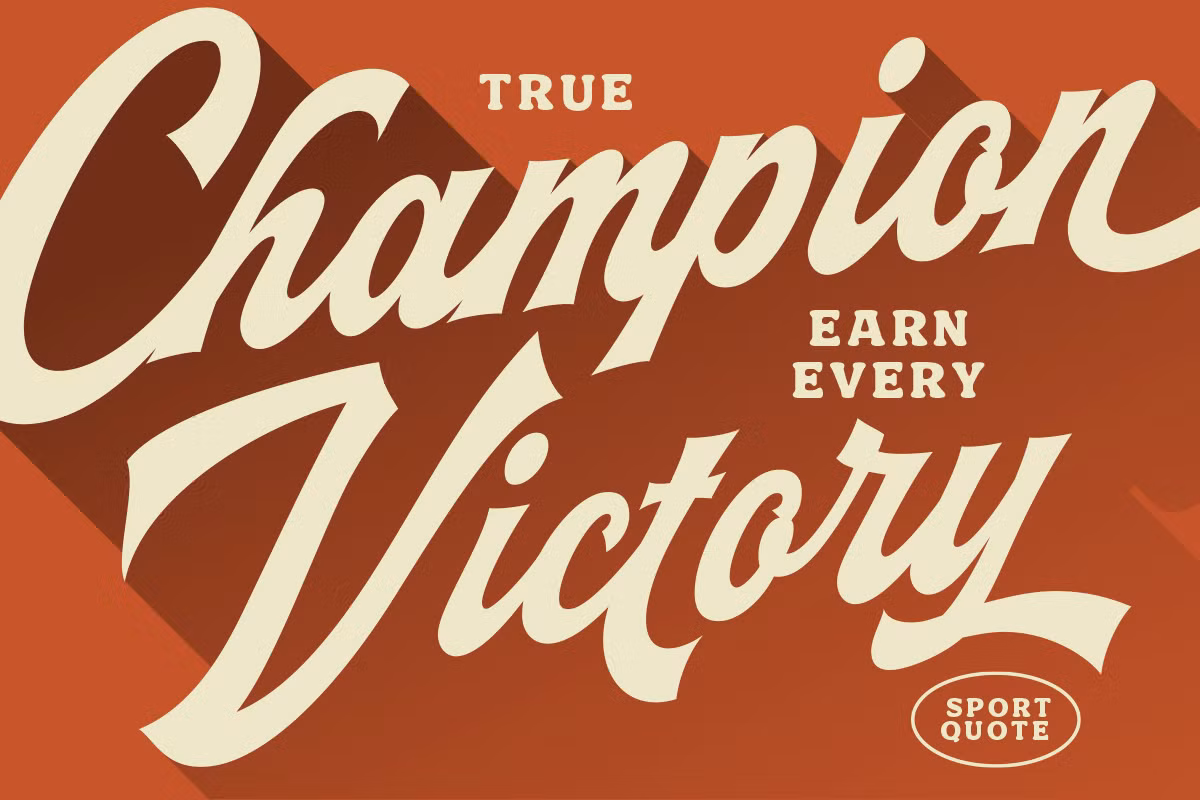
Maltone Script: Vintage Typeface with Retro Charm for Design
Maltone is a classic typeface with a lot of personality. It has thick lines, curvy shapes, and letters that stand out. The design is inspired by old signs and labels, which gives it a cozy and nostalgic feel. When you use Maltone in a project, it adds a special touch without making the text hard to read. This makes it a great choice for many different uses. The typeface is also handmade, which means it has a unique, human feel to it. Overall, Maltone is a great way to add some warmth and style to your designs. It’s perfect for anyone who wants to create something that feels friendly and approachable. With its bold look and clear letters, Maltone is a versatile typeface that can be used in many different ways.
Design Style of Maltone Script
The design aesthetic of Maltone Script is rooted in nostalgia, making it perfect for projects that seek to evoke a sense of warmth and familiarity. The bold strokes and sweeping curves are reminiscent of the artistry found in traditional sign painting, giving it a handcrafted quality that is rare in modern typefaces. The confident letterforms create a visual impact, ensuring that your text stands out without overwhelming the viewer.
Maltone Script is a great example of retro design, blending old-school typography with a modern feel. It’s not just nice to look at, but also really useful. The way the letters flow together creates a warm and welcoming atmosphere, making it perfect for branding and promotional stuff. This script has a classic touch that’s still fresh and exciting, which is why it works so well for creating eye-catching materials. Overall, Maltone Script is a fantastic choice for anyone looking to add some personality to their designs.
Character Sets and Features
Maltone Script has a lot to offer when it comes to characters – you get both uppercase and lowercase letters, numbers, and punctuation. This means you can convey all sorts of messages while keeping your design looking consistent. What’s more, Maltone also includes alternate characters and ligatures, which gives designers the freedom to create one-of-a-kind typography that really stands out. With all these options, you can experiment with different looks and feels to find the perfect fit for your project. Whether you’re working on a formal piece or something more playful, Maltone Script’s versatility has got you covered.
Maltone Script has a really useful feature – it works well with many languages, making it a great choice for designers who need to create content for different cultures. Plus, it’s PUA encoded, which means you can easily get to special characters, giving you more freedom to be creative. This makes it a versatile font that can be used in a variety of design projects, from international marketing campaigns to multilingual websites, and everything in between. The fact that it supports multiple languages and has easy access to special characters is a big plus for designers who want to create unique and effective designs.
Alternates and Ligatures
The Maltone Script font offers some really useful features like alternates and ligatures that can help make your designs stand out. With these features, you can add a personal touch to your typography, which is especially important for branding projects where you want to be different from everyone else. By using these special features, you can create unique and customized designs that reflect your brand’s personality. This is a great way to make your work more distinctive and memorable, and it’s a big advantage when you’re working on projects where you need to stand out from the crowd.
Use Cases for Maltone Script
Maltone Script is incredibly versatile, making it suitable for a wide range of design applications. Here are some key use cases:
- Logos: The bold and friendly nature of Maltone Script makes it an excellent choice for logo design. It conveys personality and can help establish a strong brand identity.
- Posters: Whether for an event, concert, or promotional campaign, Maltone Script can add a vintage flair to posters, capturing attention with its retro charm.
- Packaging: For products that want to evoke memories or a sense of history, Maltone Script enhances packaging appeal, making it look classic and traditional.
- Signage: The clarity and boldness of Maltone Script make it perfect for signage, ensuring that messages are easily readable while still being visually engaging.
- Menus: Restaurants and cafés looking to create a warm and inviting atmosphere can benefit from using Maltone Script in their menus, adding a touch of handcrafted elegance.
When designing with Maltone Script, choosing the right complementary typeface is crucial to achieving a harmonious look. Here are some pairing suggestions:
- Sans Serif Fonts: For a modern look, try combining Maltone with a clean sans serif font like Montserrat or Open Sans. This contrast works really well, as Maltone’s vintage feel gets to shine while the sans serif font keeps things clear and easy to read in the body text.
- Serif Fonts: For a more classic look, consider pairing Maltone Script with a serif font such as Merriweather or Playfair Display. This creates a beautiful balance between the retro script and the traditional serif.
- Geometric Fonts: Geometric sans serif fonts like Futura or Avenir can complement Maltone’s curves, creating a visually interesting juxtaposition of shapes.
Maltone Script is a typeface that combines old and new styles in a really cool way. It has thick lines, curvy shapes, and letters that look strong and confident. This makes it perfect for using in lots of different projects, like logos, packaging, and more. The typeface has a big set of characters, supports many languages, and can be customized with special letters and connections. This gives designers the freedom to create visuals that really grab people’s attention. Whether you’re working on a brand, a poster, or a menu, Maltone Script adds a touch of nostalgia with a clean and professional look. It’s a great way to make your design projects stand out and look amazing. With Maltone Script, you can bring a classic feel to your work and take it to the next level.